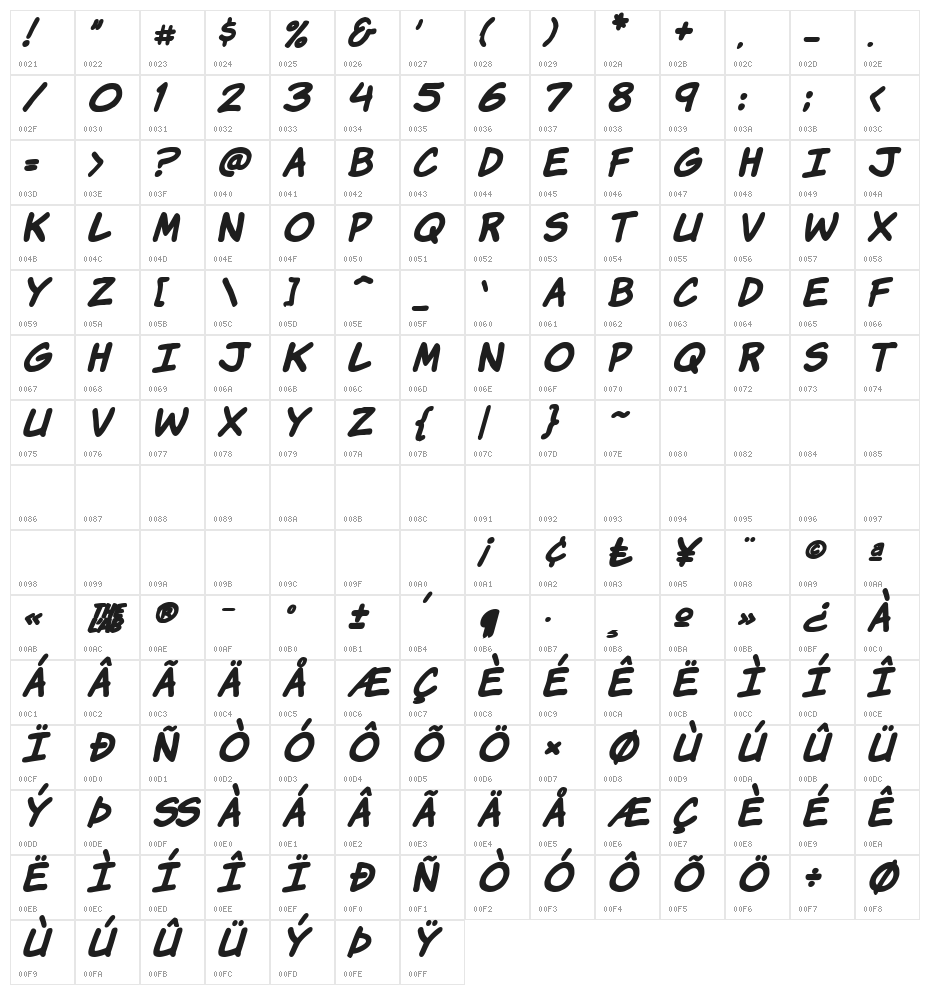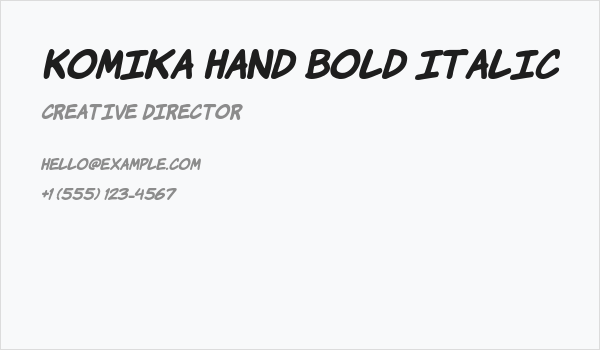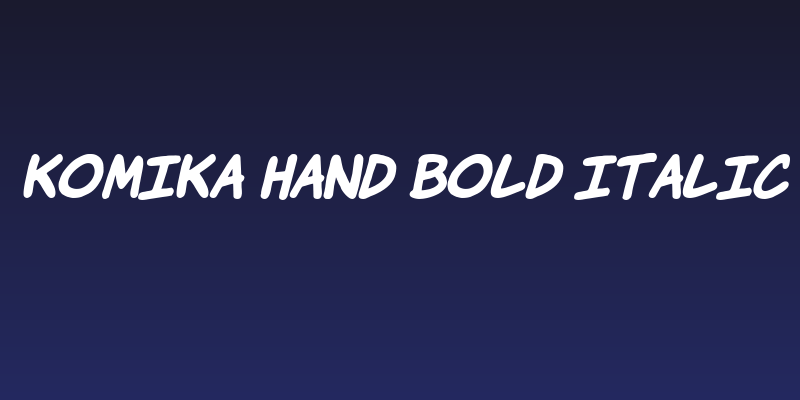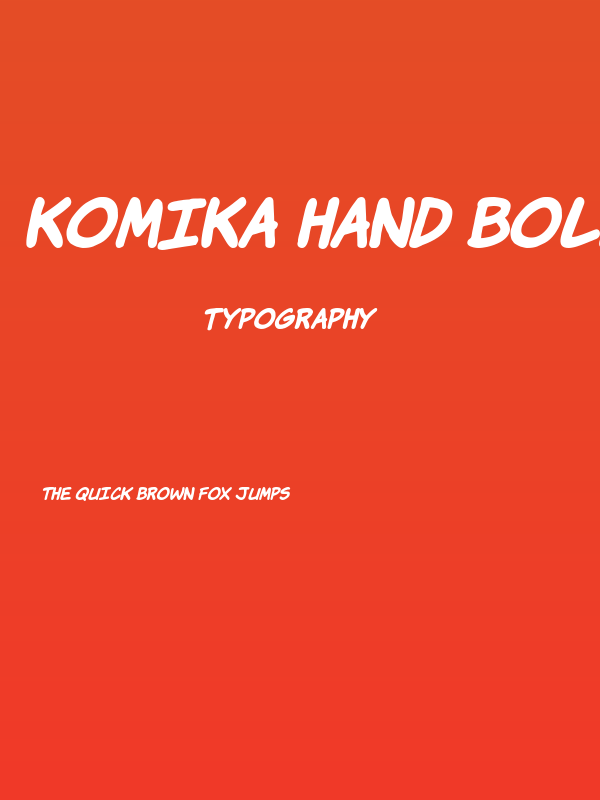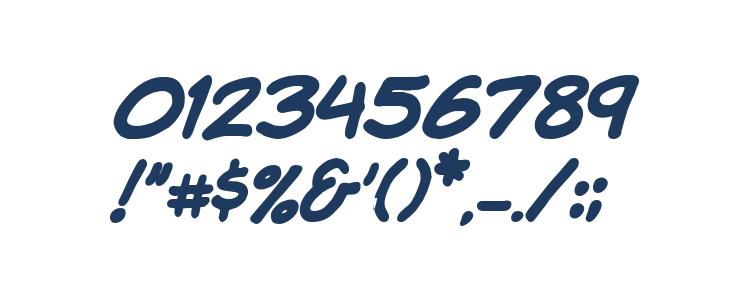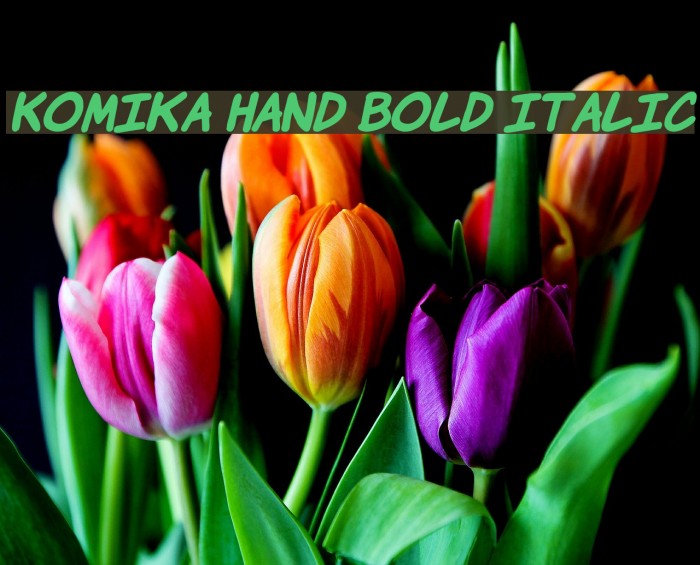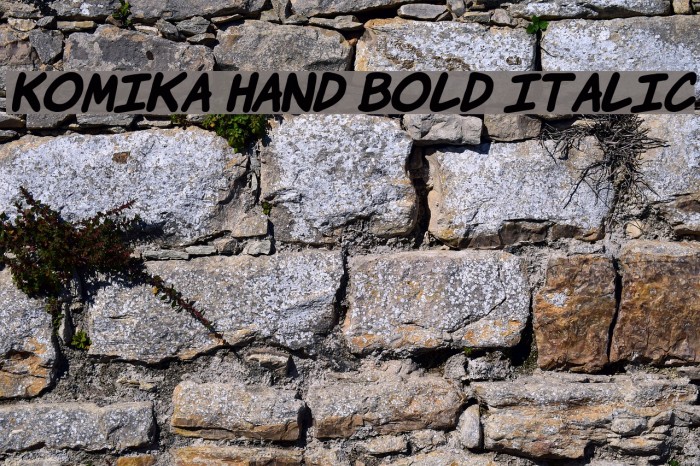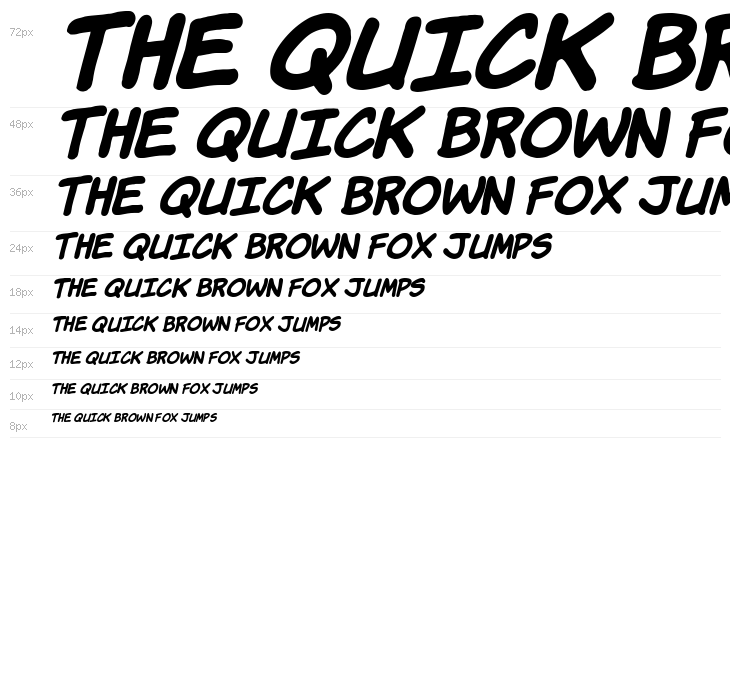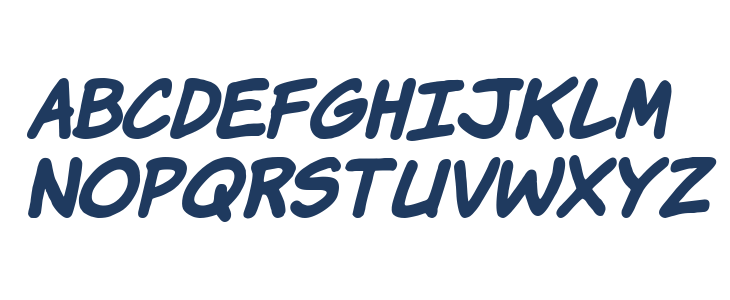
Komika Hand Bold Italic Font
Komika Hand Bold Italic Description
This font features a bold and dynamic style with a playful, handwritten appearance. The characters are slanted, giving an italicized effect that adds a sense of movement and energy. The strokes are thick and consistent, providing a strong visual impact. The rounded edges and smooth curves contribute to a friendly and approachable look, making it suitable for casual and informal designs. The font maintains a uniform weight throughout, ensuring readability while retaining its distinctive character. It is ideal for projects that require a fun and lively touch.
| Proposed Projects | Great for comic books, children's books, playful branding, and informal invitations. |